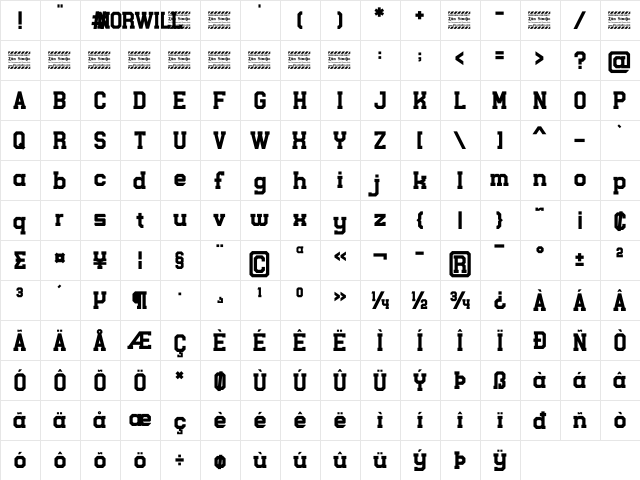
Norwill Personal Use Regular
Design Context for Norwill Personal Use Typeface
Norwill Personal Use is a composed and adaptable typeface that performs quietly and consistently across a wide range of design contexts.